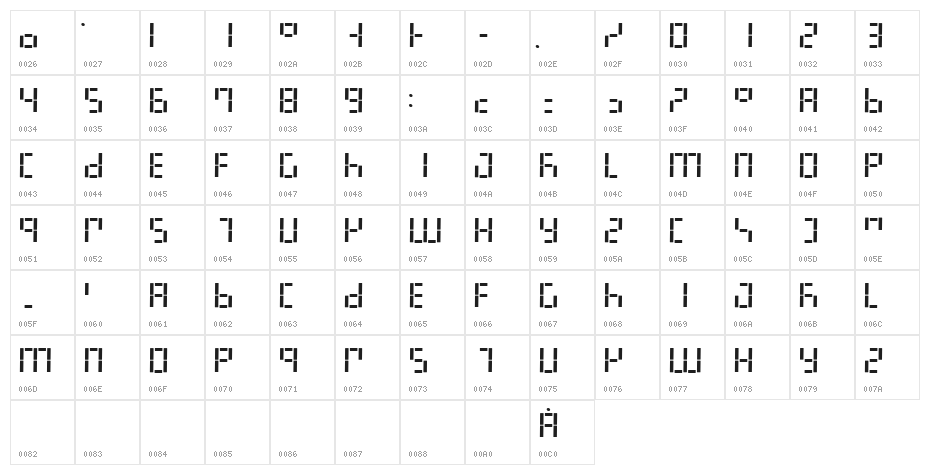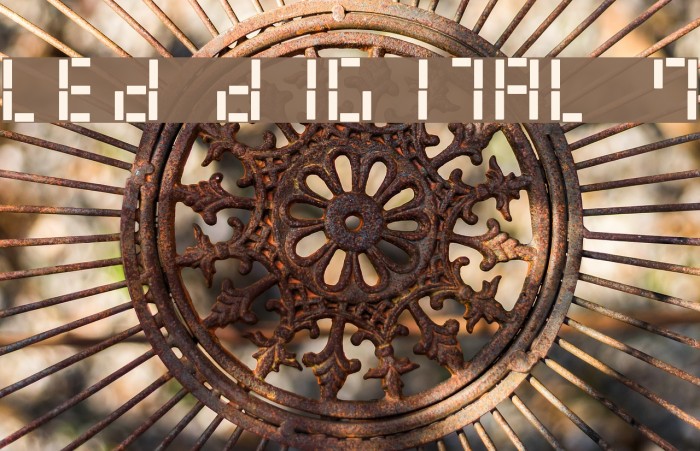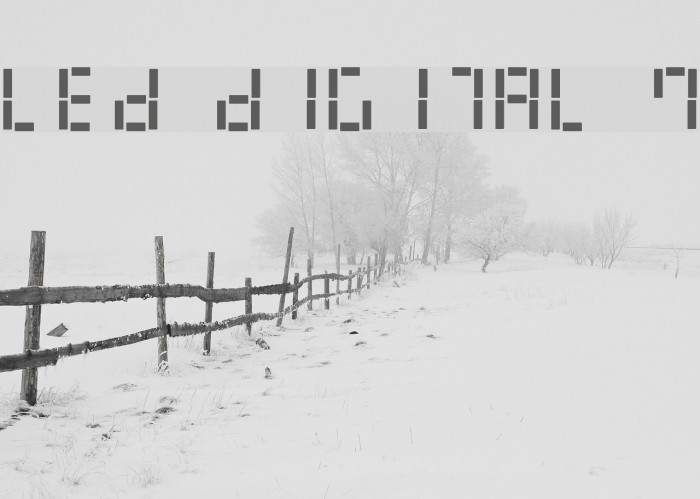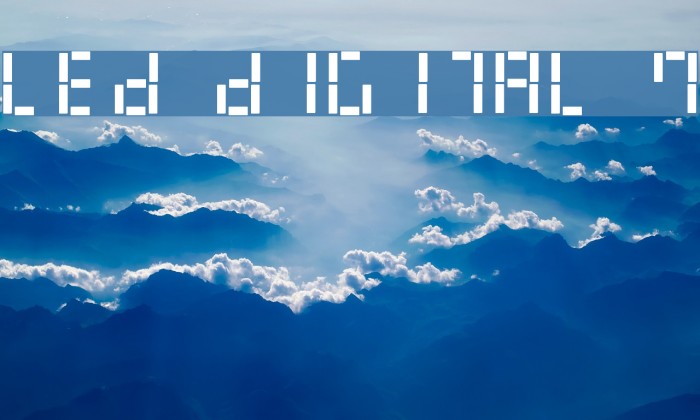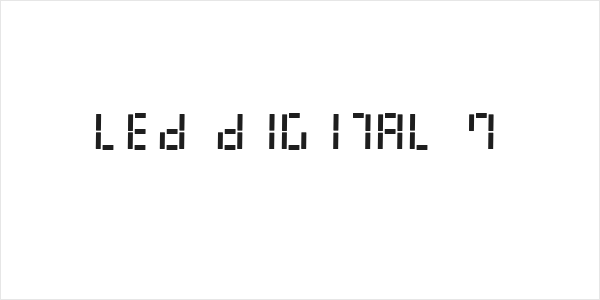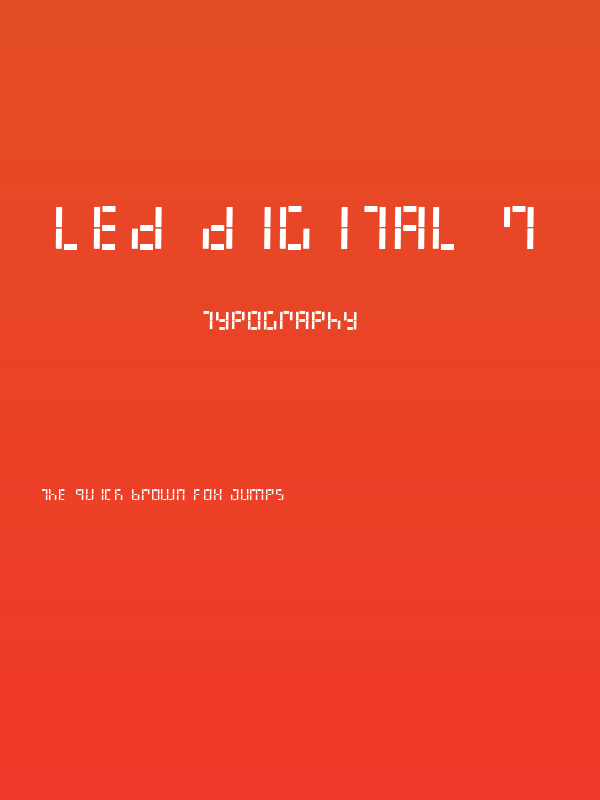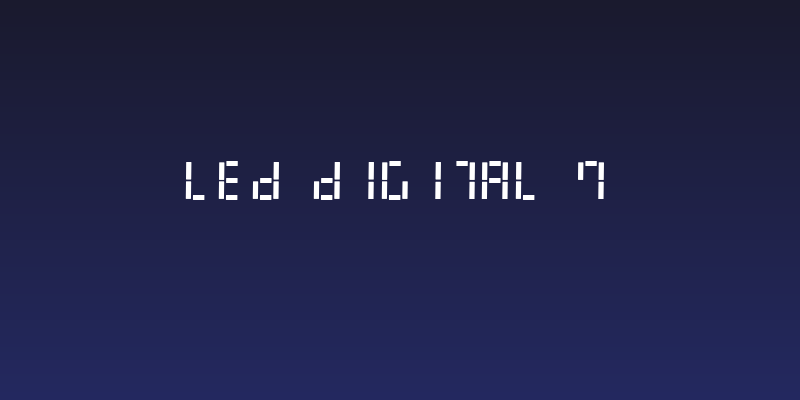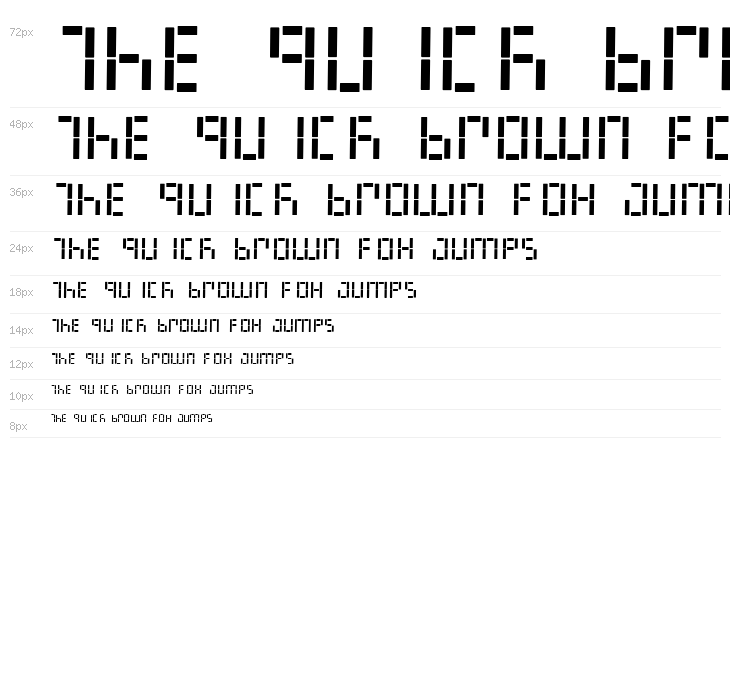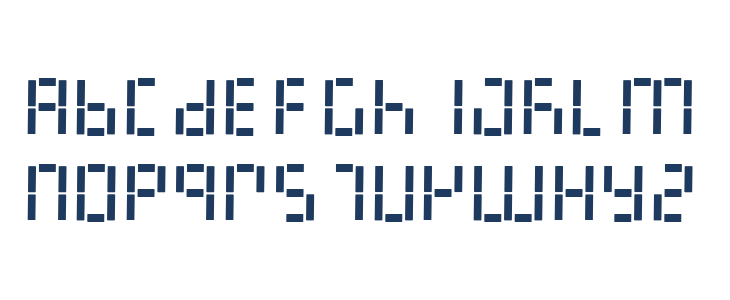
LED Digital 7 Font
LED Digital 7 Description
This font embodies a digital, retro aesthetic reminiscent of classic LED displays. Each character is constructed from a series of blocky, pixel-like segments, creating a distinctly geometric and mechanical appearance. The uppercase and lowercase letters share a similar structure, maintaining consistency across the alphabet. Numbers and special characters are equally stylized, ensuring a cohesive look throughout. The design is highly legible, making it suitable for digital-themed projects or environments where a technological feel is desired. Its unique style captures the essence of early digital displays, offering a nostalgic nod to vintage technology.
| Overall Style | Retro, Digital |
| Use Case | Headlines, Logos, Digital displays |
| Proposed Projects | Ideal for digital clocks, retro-themed designs, tech branding, and any project requiring a vintage digital aesthetic. |